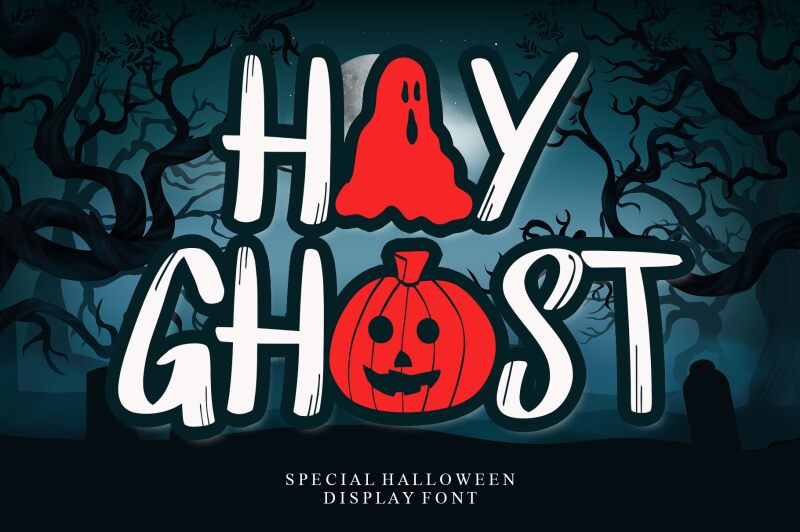
Hay Ghost, designed by Letterafa Studio, is a captivating holiday font that embraces the spirit of Halloween. With its semi-condensed width, this font adds an eerie touch to any project.
Perfect for creating invitations to spooky parties or designing haunted house flyers, Hay Ghost captivates with its playful yet haunting style. Its unique letterforms and ghostly presence make it an ideal choice for Halloween-themed posters, greeting cards, and social media graphics.
Let your imagination run wild with Hay Ghost and bring a touch of ghoulish delight to your design projects.